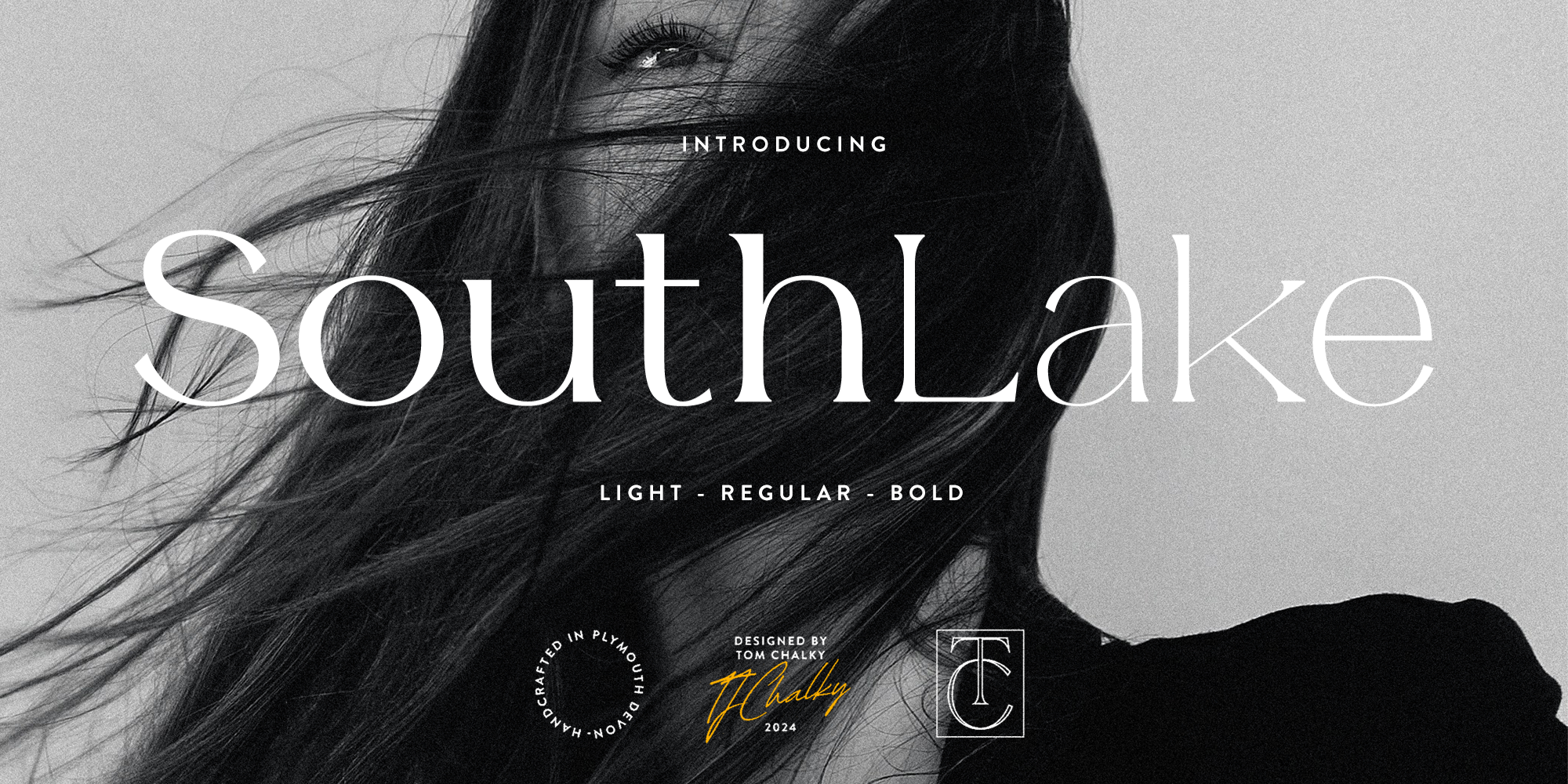
Southlake TC Font is perfect for lakeside resort branding, country club communications, suburban real estate marketing, Southern hospitality materials, golf course signage, upscale community newsletters, waterfront property advertising, regional tourism guides, luxury lakefront developments, and prestigious town center directories.
What makes Southlake TC Font exciting is its sophisticated elegance and refined Southern charm that captures the essence of exclusive lakeside communities and prestigious town centers. This distinguished typeface embodies the gracious lifestyle of affluent suburban areas with its polished character forms and cultured proportions that evoke feelings of comfort, prestige, and community pride. The font's refined character creates an immediate impression of quality living and established tradition.
Southlake TC Font family includes multiple weights with elegantly crafted character designs featuring sophisticated curves and town center-inspired proportions. The typeface maintains exceptional readability while preserving its distinctive upscale personality through carefully balanced letterforms that reflect the architectural harmony of well-planned communities.
Real estate professionals and community developers choose Southlake TC Font Free Download for projects requiring authentic suburban sophistication and community pride. This remarkable typeface brings the elegance of exclusive lakeside living to brand communications, combining traditional Southern hospitality with contemporary luxury to create aspirational lifestyle experiences. The thoughtfully designed characters ensure prestigious positioning across all applications, making it essential for luxury developments, country clubs, and any organization seeking to communicate the refined quality of life and community excellence found in America's most desirable suburban communities.